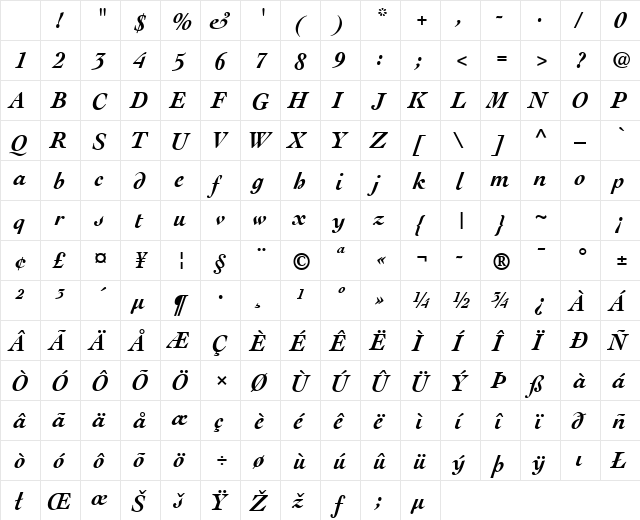
Complete Cochin Bold Italic glyph index. Displaying only characters natively supported by Cochin Bold Italic font.
Cochin is a composed and adaptable typeface that performs quietly and consistently across a wide range of design contexts. The slanted form adds forward momentum and visual energy. Its bold stroke weight gives it real presence on the page.
Pro Tip: Use Cochin for emphasis, pull quotes, and subheadings where its slanted energy can add rhythm to the layout.